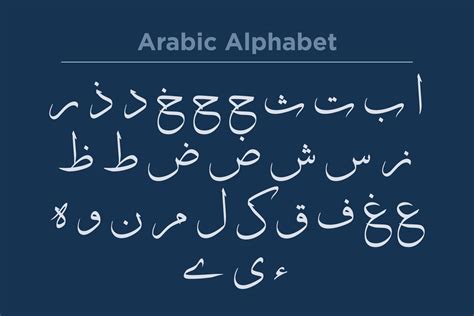
Arabic Calligraphy Fonts: A Comprehensive Guide
Arabic calligraphy, an art form steeped in history and tradition, continues to captivate with its fluid lines and intricate designs. The beauty of Arabic calligraphy fonts lies not only in their aesthetic appeal but also in their profound cultural significance. Whether you’re a seasoned designer or simply an admirer of this elegant script, understanding the nuances of Arabic calligraphy fonts is essential. In this comprehensive guide, we’ll delve into the world of Arabic calligraphy fonts, exploring their various styles, historical context, and practical applications. So, let’s embark on a journey to discover the artistry and versatility of these timeless fonts.
Understanding the Essence of Arabic Calligraphy Fonts
Arabic calligraphy fonts are more than just digital representations of letters; they are embodiments of artistic expression and cultural heritage. The art of Arabic calligraphy, known as khatt , has been revered for centuries, with skilled calligraphers meticulously crafting each stroke to create harmonious compositions. The development of Arabic calligraphy fonts has made this art form more accessible, allowing designers and enthusiasts to incorporate its beauty into various projects. To truly appreciate Arabic calligraphy fonts, it’s crucial to understand their historical roots and the principles that govern their design.
A Historical Journey Through Arabic Calligraphy
The origins of Arabic calligraphy can be traced back to the early days of Islam, where it served as a primary means of preserving and disseminating the Quran. The earliest forms of Arabic script were relatively simple and angular, but over time, they evolved into more elaborate and decorative styles. The development of various calligraphic scripts was closely tied to the needs of different regions and the preferences of individual calligraphers. Some of the most influential styles include Kufic, Naskh, Thuluth, and Diwani, each with its own distinct characteristics and applications. The Kufic script , for example, is characterized by its geometric shapes and angular lines, making it ideal for architectural inscriptions and decorative elements. The Naskh script , on the other hand, is more rounded and legible, making it suitable for writing texts and manuscripts. The Thuluth script is known for its bold and elegant curves, often used for titles and headings. The Diwani script is highly ornamental and cursive, typically employed for official documents and royal decrees. Understanding the historical context of these different styles is essential for selecting the appropriate Arabic calligraphy font for your project.
Key Principles of Arabic Calligraphy Font Design
Designing Arabic calligraphy fonts requires a deep understanding of the principles that govern this art form. The proportions, balance, and rhythm of the letters are carefully considered to create visually harmonious compositions. One of the fundamental principles is the concept of mizan , which refers to the balance and harmony between different elements of the script. Calligraphers strive to achieve a perfect balance between the vertical and horizontal strokes, as well as the positive and negative spaces. Another important principle is the use of nuqat , which are dots placed above or below the letters to distinguish them from one another. The placement and number of nuqat are carefully determined to maintain the legibility and aesthetic appeal of the script. Additionally, the use of ligatures , which are connections between letters, plays a crucial role in creating the flowing and cursive nature of Arabic calligraphy. By adhering to these principles, designers can create Arabic calligraphy fonts that are both beautiful and functional.
Exploring Different Styles of Arabic Calligraphy Fonts
The world of Arabic calligraphy fonts is incredibly diverse, with each style possessing its unique characteristics and applications. From the geometric precision of Kufic to the elegant curves of Thuluth, there’s an Arabic calligraphy font to suit every design need. Let’s take a closer look at some of the most popular and influential styles.
Kufic: The Geometric Pioneer
Kufic is one of the oldest and most recognizable styles of Arabic calligraphy. Characterized by its angular lines and geometric shapes, Kufic exudes a sense of strength and stability. It was widely used in early Islamic manuscripts and architectural inscriptions, often adorning mosques and other important buildings. There are several variations of Kufic, including Square Kufic, Floral Kufic, and Foliated Kufic , each with its distinct decorative elements. Square Kufic, as the name suggests, features a grid-like structure, with letters formed by squares and rectangles. Floral Kufic incorporates floral motifs into the design, adding a touch of elegance and ornamentation. Foliated Kufic includes leaf-like elements, further enhancing its decorative appeal. Kufic fonts are often used in modern designs to convey a sense of tradition and authority.
Naskh: The Legible Standard
Naskh is a more rounded and legible style of Arabic calligraphy, making it the standard script for writing texts and manuscripts. It was developed in the 10th century and quickly gained popularity due to its clarity and ease of reading. Naskh fonts are widely used in books, newspapers, and other publications. The simplicity and elegance of Naskh make it a versatile choice for various design projects. It’s often used in conjunction with other more decorative styles to provide a balance between readability and aesthetic appeal. Naskh is considered the foundation for many other Arabic calligraphy styles, making it an essential script to understand for anyone interested in Arabic calligraphy fonts.
Thuluth: The Majestic Display Script
Thuluth is a bold and elegant style of Arabic calligraphy, often used for titles, headings, and decorative elements. It’s characterized by its long, sweeping curves and intricate compositions. Thuluth is considered one of the most beautiful and challenging styles to master, requiring a high level of skill and precision. Thuluth fonts are frequently used in religious texts, particularly in Quranic verses and Hadith collections. Its majestic appearance makes it ideal for creating a sense of grandeur and reverence. In modern designs, Thuluth fonts are often used to add a touch of sophistication and elegance.
Diwani: The Ornamental Royal Script
Diwani is a highly ornamental and cursive style of Arabic calligraphy, typically used for official documents, royal decrees, and other important texts. It’s characterized by its flowing lines, exaggerated curves, and intricate ligatures. Diwani is known for its complexity and requires a skilled calligrapher to execute properly. Diwani fonts are often used in certificates, diplomas, and other formal documents to convey a sense of prestige and authority. Its elaborate design makes it a popular choice for decorative purposes, adding a touch of opulence and sophistication. There are two main variations of Diwani: Diwani Jali and Diwani Khafi . Diwani Jali is more elaborate and decorative, while Diwani Khafi is simpler and more legible.
Practical Applications of Arabic Calligraphy Fonts
Arabic calligraphy fonts are not just aesthetically pleasing; they also have numerous practical applications in various fields. From graphic design to web development, these fonts can add a touch of elegance and cultural significance to your projects. Let’s explore some of the ways you can use Arabic calligraphy fonts in your designs.
Graphic Design
In graphic design, Arabic calligraphy fonts can be used to create stunning logos, posters, and other visual materials. The unique and intricate designs of these fonts can help your brand stand out and convey a sense of tradition and authenticity. When using Arabic calligraphy fonts in your designs, it’s important to consider the overall aesthetic and target audience. Choose a font that aligns with your brand’s identity and resonates with your audience. Experiment with different styles and sizes to find the perfect balance between legibility and visual appeal. Arabic calligraphy fonts can also be combined with other fonts to create a unique and dynamic look. For example, you can use an Arabic calligraphy font for the main title and a simpler sans-serif font for the body text.
Web Design
Arabic calligraphy fonts can also be used to enhance the visual appeal of your website. By incorporating these fonts into your website’s design, you can create a more engaging and culturally relevant experience for your visitors. However, it’s important to use Arabic calligraphy fonts judiciously to ensure readability and accessibility. Avoid using them for large blocks of text, as they can be difficult to read on screen. Instead, use them for headings, titles, and other decorative elements. When choosing Arabic calligraphy fonts for your website, consider the loading time and browser compatibility. Some fonts may be too large or not supported by all browsers, which can negatively impact the user experience. Optimize your fonts for web use and test them on different devices and browsers to ensure they display correctly.
Branding and Marketing
Arabic calligraphy fonts can be a powerful tool for branding and marketing, particularly for businesses that want to appeal to Arabic-speaking audiences or convey a sense of cultural heritage. By using these fonts in your logo, marketing materials, and advertising campaigns, you can create a strong and memorable brand identity. When using Arabic calligraphy fonts for branding, it’s important to ensure that the font accurately reflects your brand’s values and personality. Choose a font that aligns with your brand’s message and resonates with your target audience. Consider the cultural context and avoid using fonts that may be considered inappropriate or offensive. Arabic calligraphy fonts can also be used to create a sense of exclusivity and luxury. By incorporating these fonts into your packaging and product design, you can elevate your brand’s image and appeal to discerning customers.
Tips for Choosing the Right Arabic Calligraphy Font
Selecting the right Arabic calligraphy font for your project can be a daunting task, given the wide variety of styles and options available. Here are some tips to help you make the right choice:
1. Consider the Purpose: Determine the purpose of your project and choose a font that aligns with its intended use. For example, if you’re designing a book, you’ll need a font that is legible and easy to read. If you’re creating a logo, you can opt for a more decorative and eye-catching font.
2. Know Your Audience: Think about your target audience and choose a font that resonates with them. If you’re designing for a specific cultural group, consider their preferences and sensitivities.
3. Test for Readability: Always test the font for readability, especially when using it for large blocks of text. Make sure the letters are clear and easy to distinguish from one another.
4. Check for Compatibility: Ensure that the font is compatible with your design software and the platforms you’ll be using it on. Test it on different devices and browsers to ensure it displays correctly.
5. Seek Inspiration: Look for inspiration from other designs that use Arabic calligraphy fonts. Pay attention to how the fonts are used and how they contribute to the overall aesthetic.
Conclusion: The Enduring Allure of Arabic Calligraphy Fonts
Arabic calligraphy fonts are more than just fonts; they are a testament to the rich cultural heritage and artistic traditions of the Arab world. Their beauty and versatility make them a valuable asset for designers, artists, and anyone who appreciates the art of calligraphy. Whether you’re designing a logo, creating a website, or simply adding a touch of elegance to your project, Arabic calligraphy fonts can help you achieve your vision. By understanding the history, principles, and styles of these fonts, you can unlock their full potential and create stunning designs that captivate and inspire. So, embrace the artistry of Arabic calligraphy fonts and let your creativity flow.